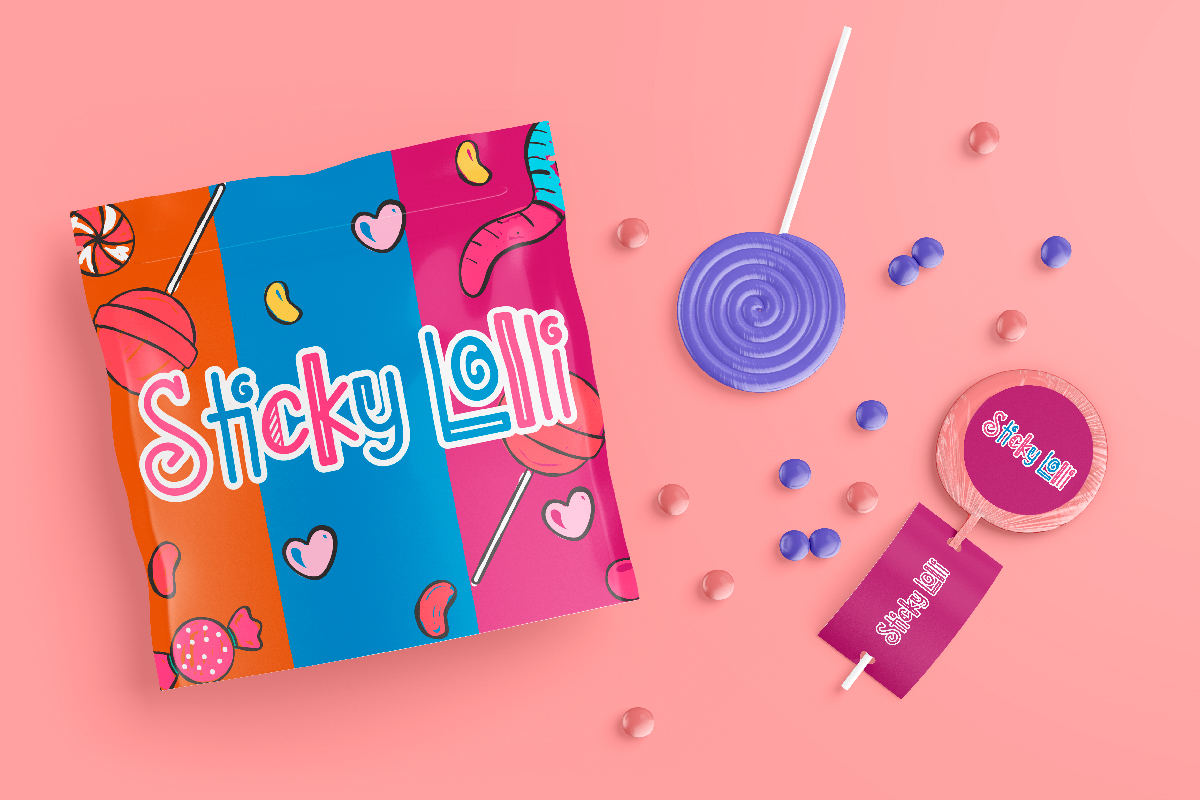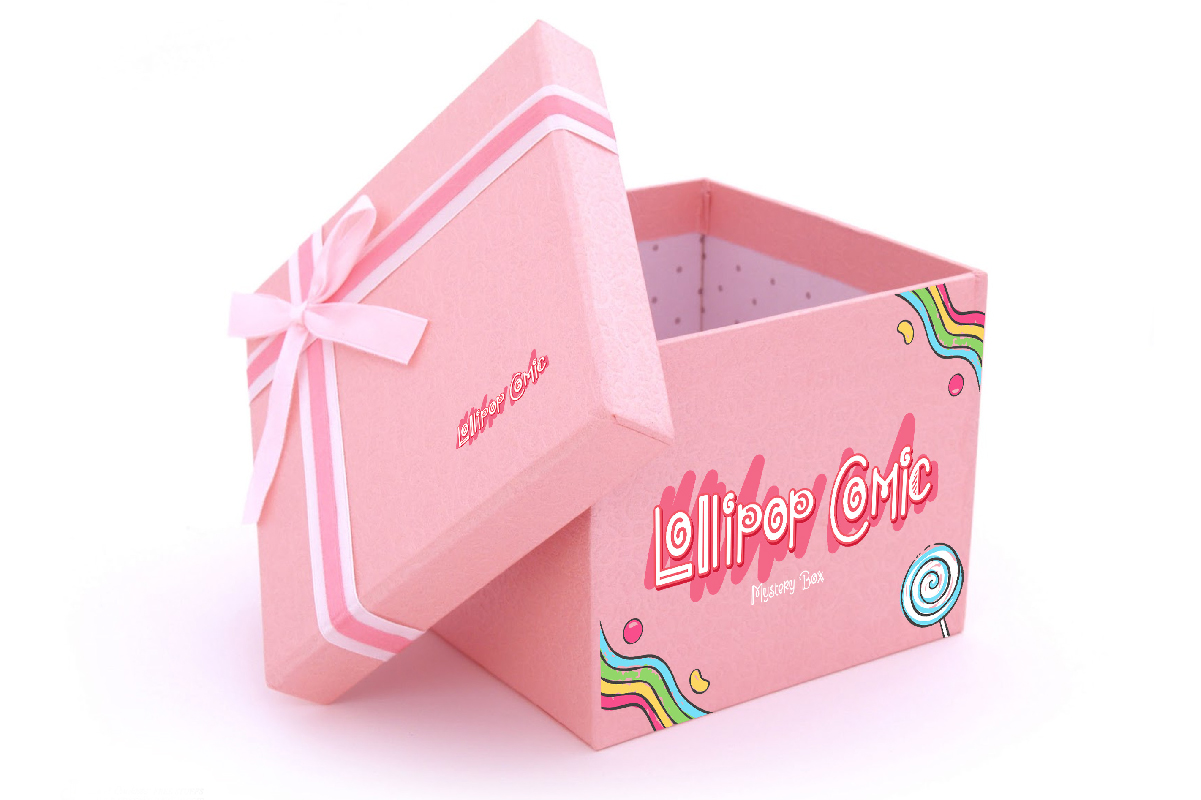
Lollipop Comic Font
Lollipop Comic Font is a fun display font with candy lollipop shape. The font will be great for holiday projects, FnB brands, homeware, children, school etc. Lollipop Comic Font includes of uppercase and lowercase letters, numerals, punctuation and ligatures. Great for your cheery projects. For toy cards, product packaging and more! Basic characters for numbers and punctuation in fonts. You can find candy characters in the use of LOWERCASE letters by combining them with uppercase characters to combine a suitable appearance.